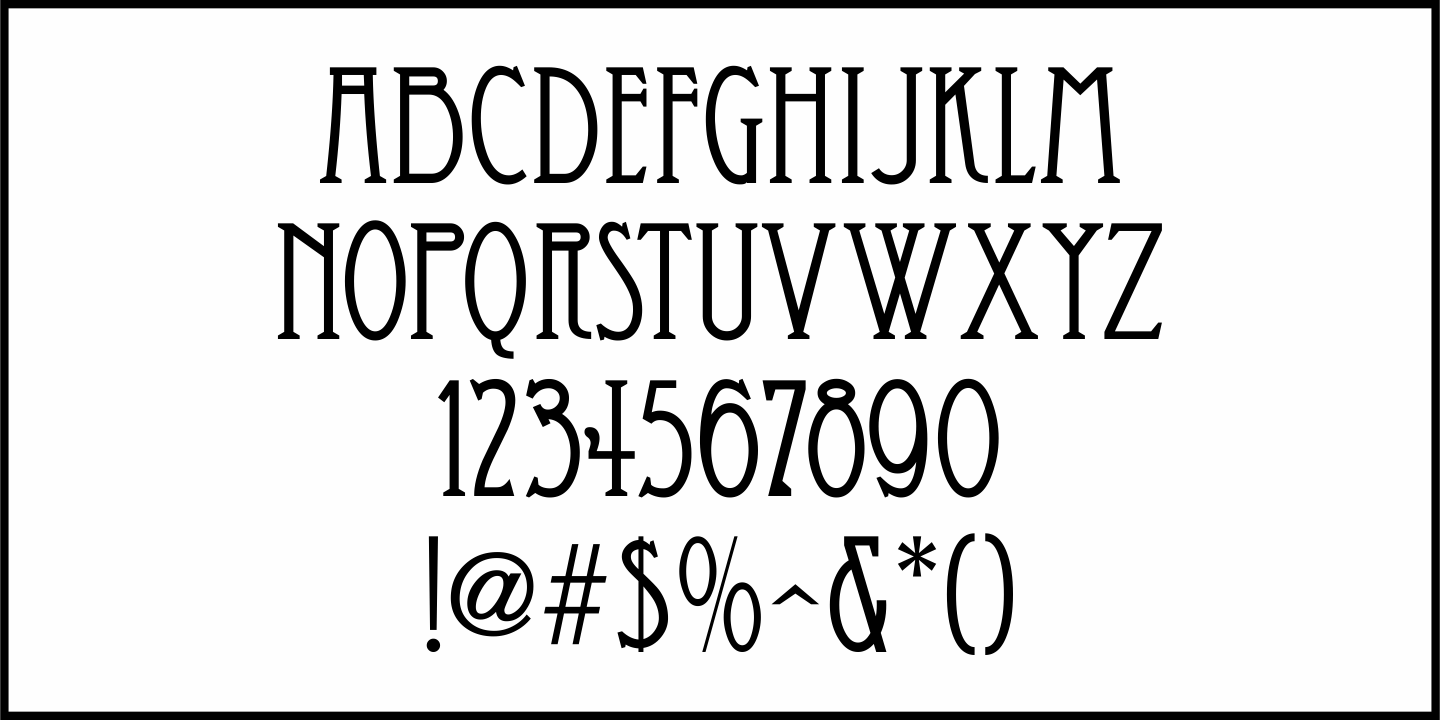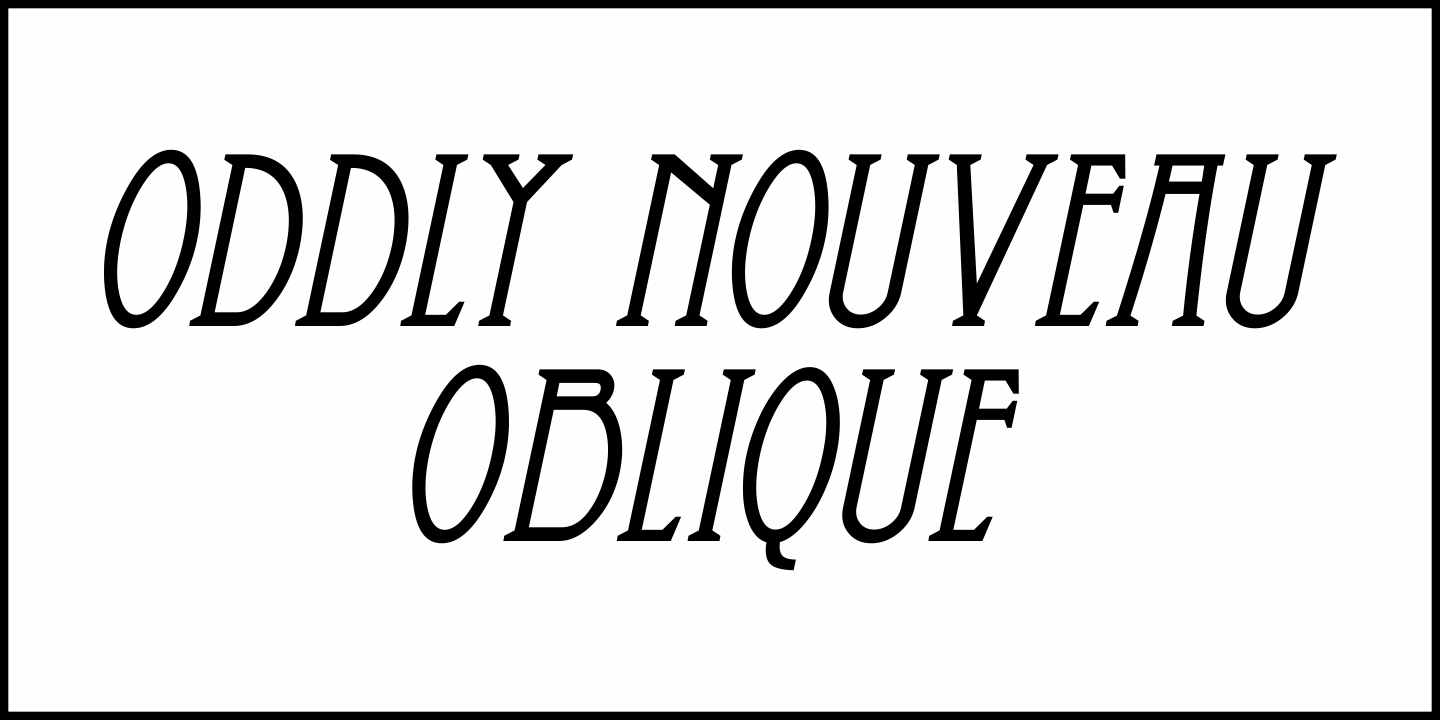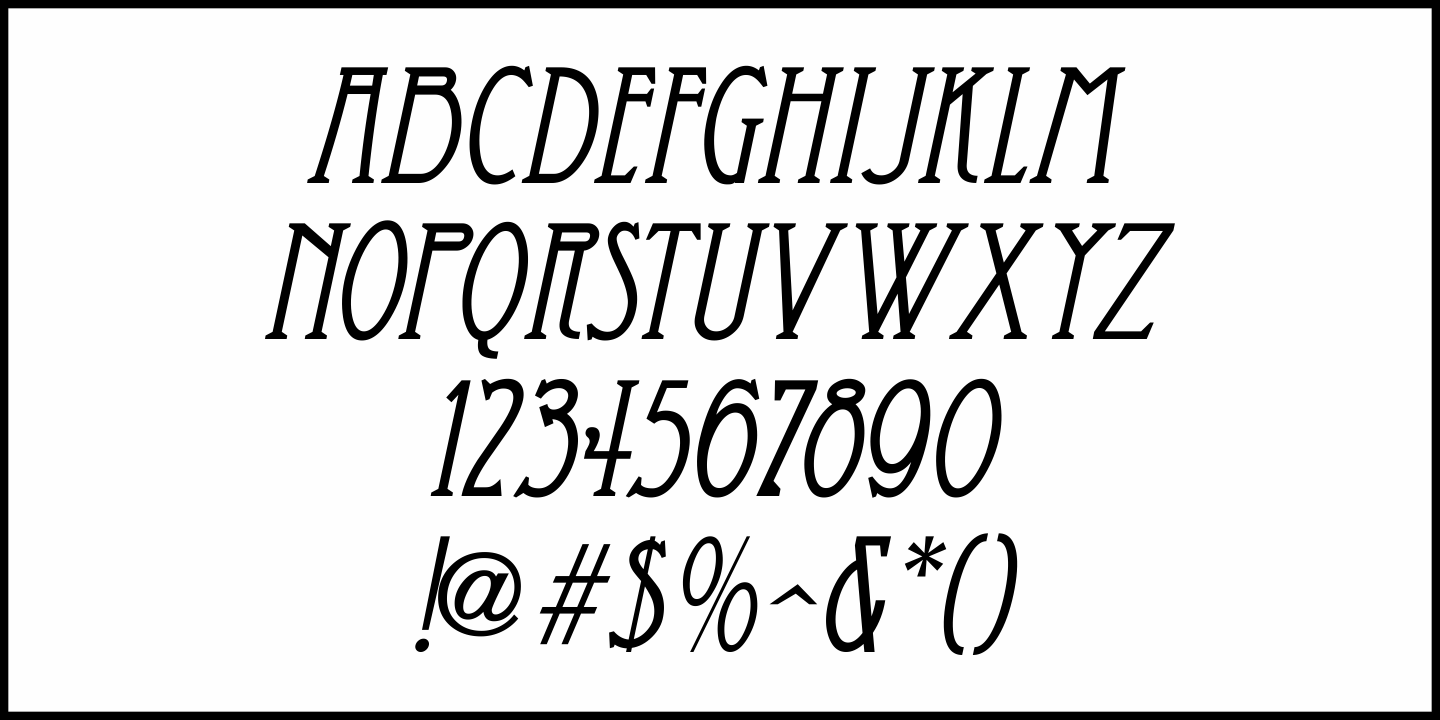
Oddly Nouveau
Oddly Nouveau JNL is a charming Art Nouveau design based on “Eccentric”, a metal typeface issued by American Type Founders (circa 1898).
This digital version is available in both regular and oblique versions.